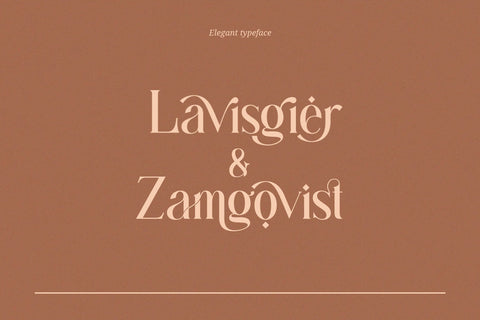
Gingko Ligature Typeface
Gingko Ligature Typeface inspired by the famous minimalist logo perfect for the purposes of designing templates, brochures, videos, advertising branding, logos and more.
+ Ligatures
+ International Accent
Fonts include multilingual support